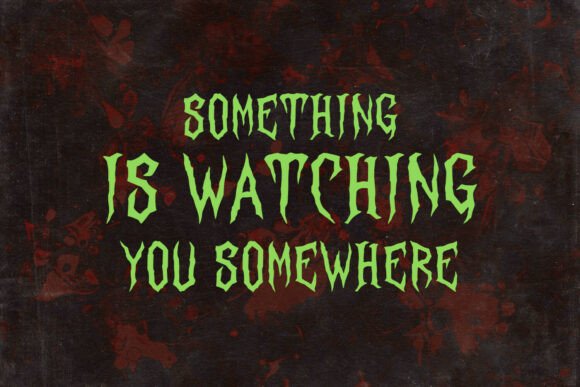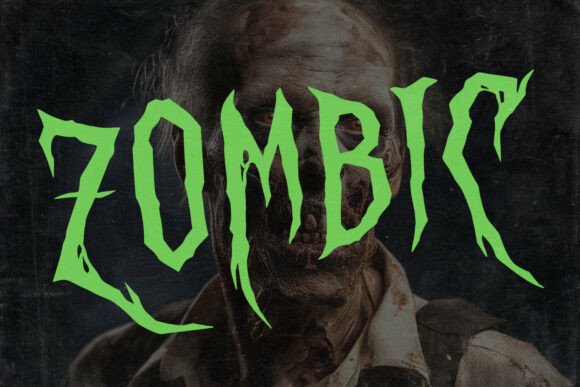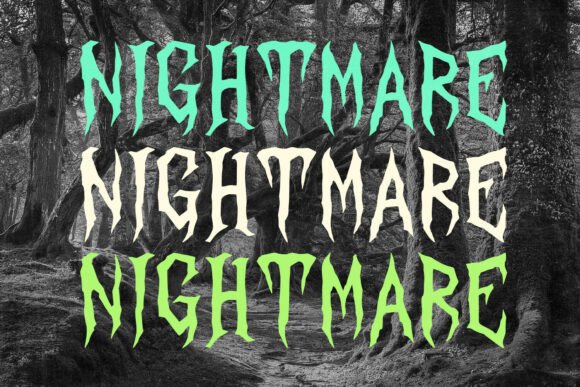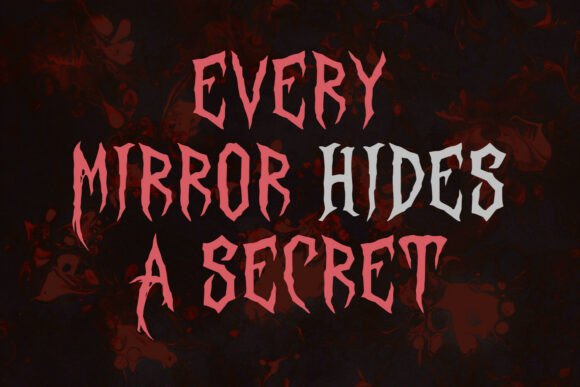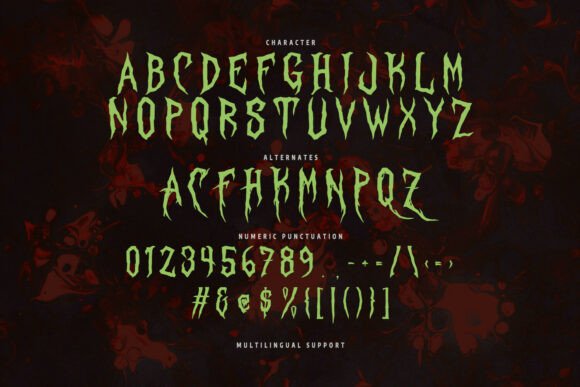
Unleash the Darkness with Auxzern: The Ultimate Blackletter Font for Spine-Chilling Designs
Are you a designer or craft looking for a font that can bring your darkest and most terrifying visions to life? Look no further than Auxzern, a spine-chilling blackletter font that captures the raw energy of classic horror cinema and dark metal aesthetics. With its sharp, jagged edges and distorted, aggressive silhouette, Auxzern is the perfect choice for Halloween event branding, horror movie titles, and dark fantasy book covers that need a touch of ancient, eerie mystery.
Auxzern: A Modern Take on Traditional Gothic Calligraphy
Auxzern reimagines traditional gothic calligraphy with jagged, thorn-like strokes and elongated, dripping terminals that feel like they were carved by hand. This font is not for the faint of heart; it’s designed to evoke a sense of fear and unease, making it perfect for designs that require a bold and unsettling look. Whether you’re creating haunted house signage, heavy metal merch, or gothic stationery, Auxzern brings a touch of authentic grit to your designs.
Design Features of Auxzern
Auxzern’s design features are what set it apart from other blackletter fonts. Its sharp, jagged edges and distorted silhouette give it a menacing look that’s sure to grab attention. The font’s jagged, thorn-like strokes and elongated terminals add to its eerie and unsettling feel, making it perfect for designs that require a sense of horror or unease.
Perfect for High-Contrast Designs
Auxzern is highly effective for high-contrast designs, especially when paired with blood-red or neon-green accents on a distressed black background. This font is designed to stand out, and its aggressive verticality and sharp points make it perfect for use as a display header. Whether you’re creating a Halloween event flyer or a horror movie poster, Auxzern is sure to make your design pop.
Uses for Auxzern
Auxzern is a versatile font that can be used for a variety of design projects, including:
- Halloween event branding: Create spooky and inviting designs for Halloween events, parties, and haunted houses.
- Horror movie titles: Add a touch of horror and suspense to your movie titles and posters.
- Dark fantasy book covers: Create eerie and captivating book covers for dark fantasy and horror novels.
- Haunted house signage: Create spooky and inviting signs for haunted houses and haunted attractions.
- Heavy metal merch: Create bold and aggressive designs for heavy metal band merchandise.
- Gothic stationery: Add a touch of elegance and mystery to your stationery and correspondence.
Why Choose Auxzern?
So why choose Auxzern for your design projects? Here are just a few reasons:
- Unique and bold design: Auxzern’s sharp, jagged edges and distorted silhouette make it a standout font that’s sure to grab attention.
- Versatile: Auxzern can be used for a variety of design projects, from Halloween events to heavy metal merch.
- Eerie and unsettling: Auxzern’s design is perfect for creating a sense of horror or unease, making it ideal for horror movie titles and dark fantasy book covers.
- Authentic grit: Auxzern brings a touch of authentic grit to your designs, making it perfect for creating haunted house signage and heavy metal merch.
If you’re looking for a font that can bring your darkest and most terrifying visions to life, look no further than Auxzern. With its sharp, jagged edges and distorted, aggressive silhouette, Auxzern is the perfect choice for designers and crafters who want to create bold and unsettling designs. Whether you’re creating Halloween event branding, horror movie titles, or dark fantasy book covers, Auxzern is the ultimate choice for adding a touch of ancient, eerie mystery to your designs.